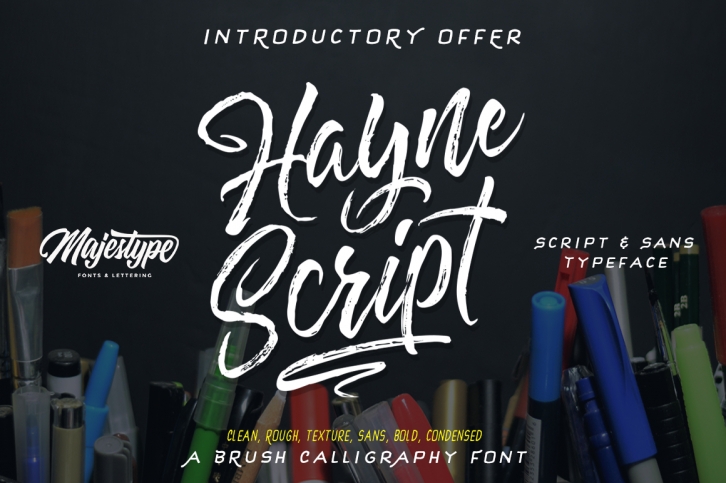
Hayne Script + Sans is a gorgeous font that was realeased on November 7, 2016. The font can be used in many style contexts and design environments. Perfect for invitations, magazines, websites, logos, and more! It was designed by Majestype and the file size is 15.69 MB. Thanks for checking out this font!